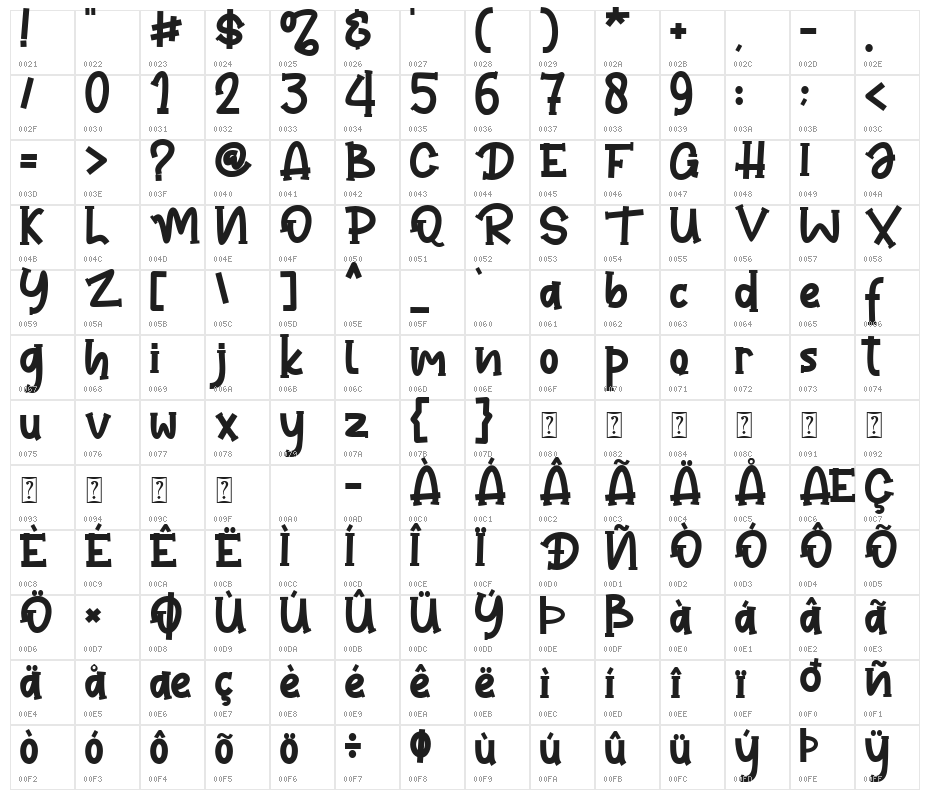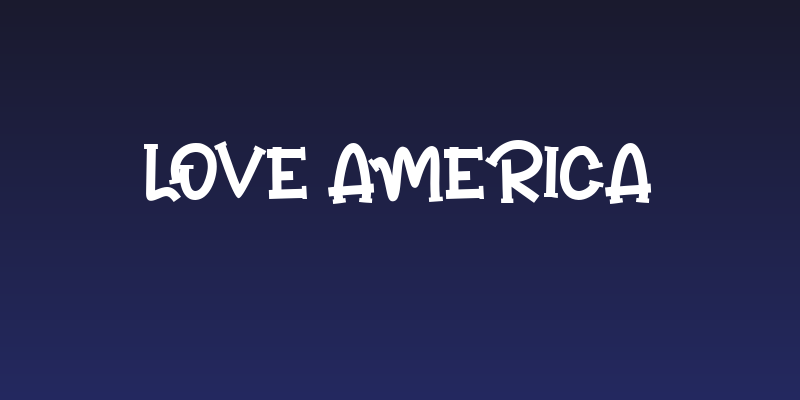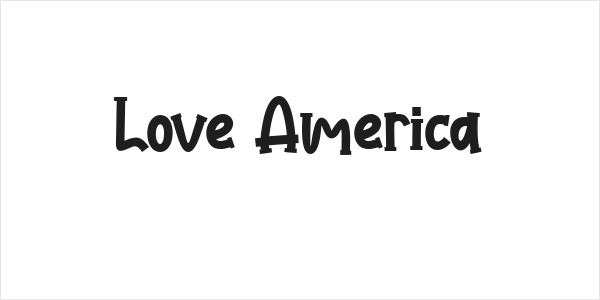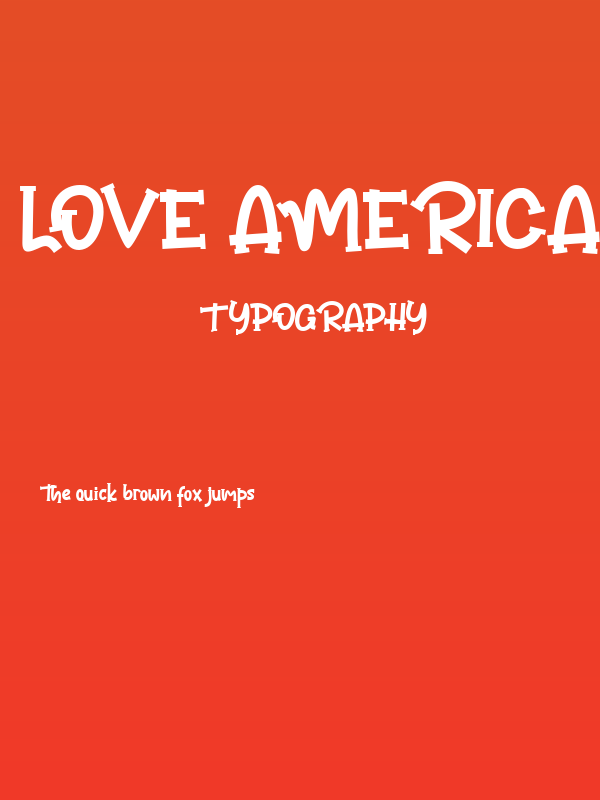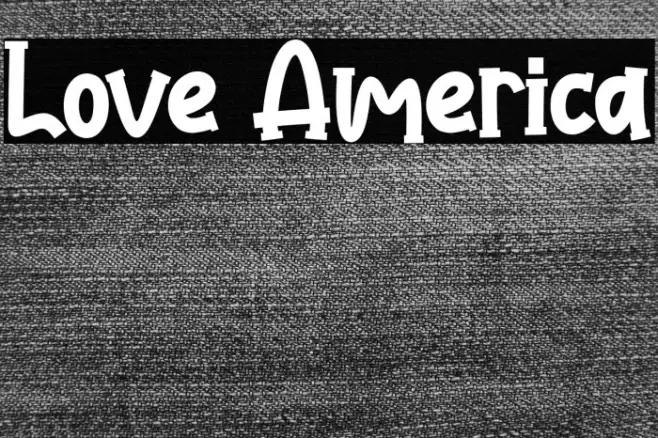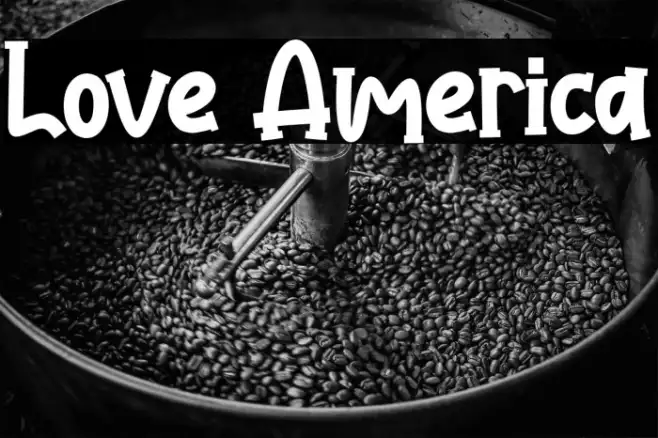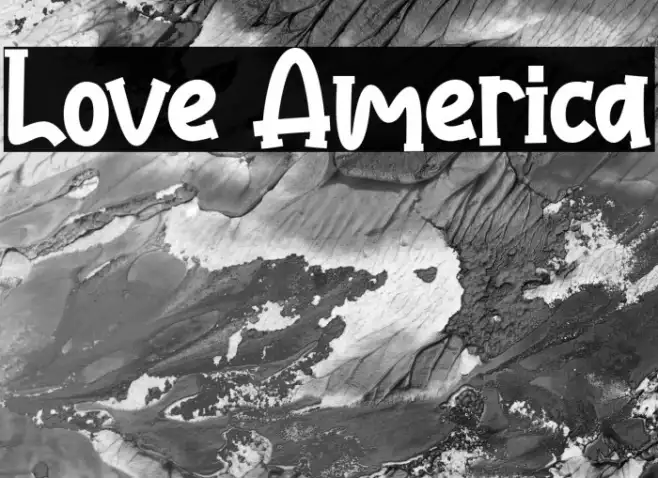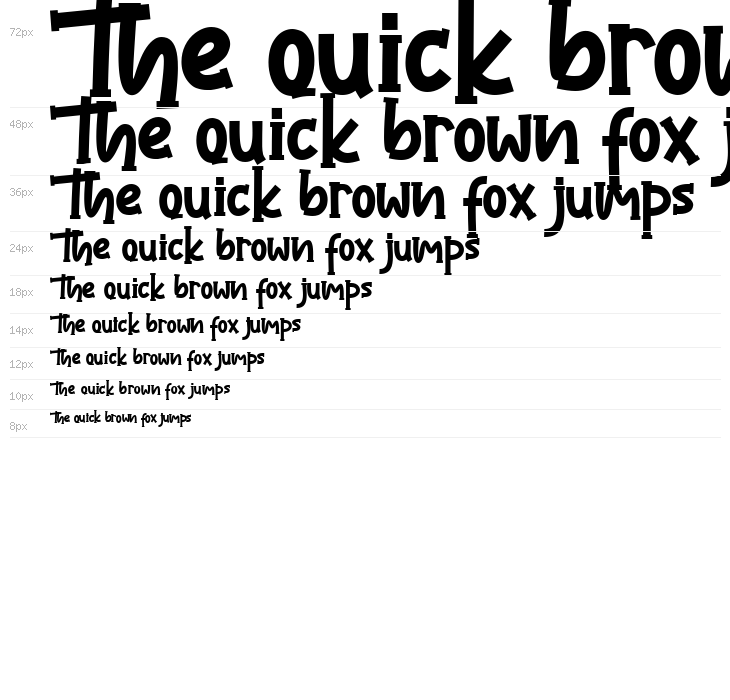
Love America Font
Love America Description
This font features a playful and bold style with a handwritten feel. The characters are slightly irregular, adding a whimsical and casual touch. The uppercase letters are tall and slightly narrow, while the lowercase letters maintain a consistent height with rounded edges. Numbers and special characters follow the same playful design, making the font versatile for various creative projects. The strokes are thick, providing a strong presence, and the overall look is both friendly and approachable.
| Proposed Projects | Ideal for children's books, playful branding, greeting cards, and casual invitations. |